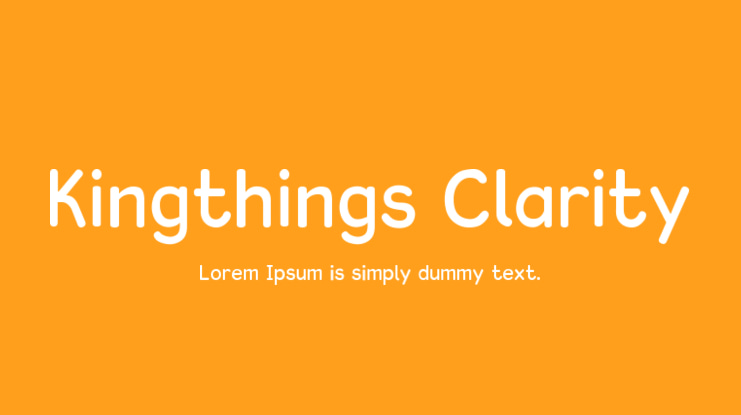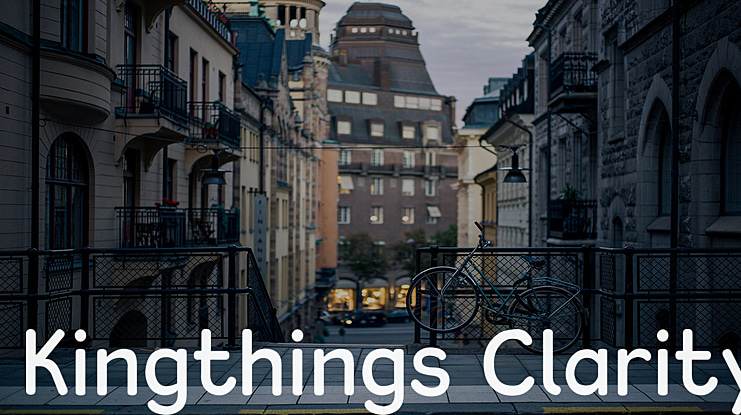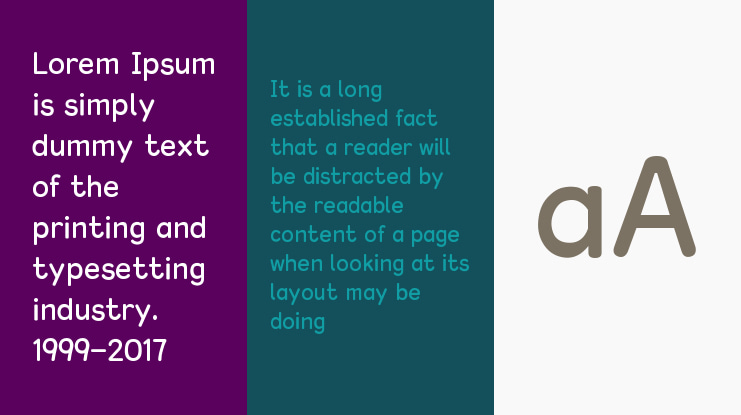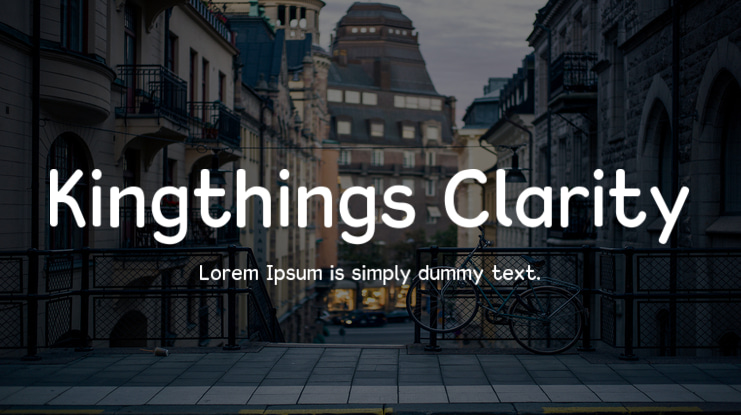
Kingthings Clarity Font
A while ago I read a letter in a PC magazine where a guy was bemoaning the fact that he couldn't find a free dyslexia font - long story short, this is mine - and it is free.